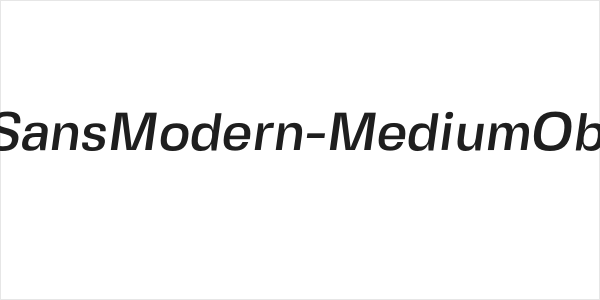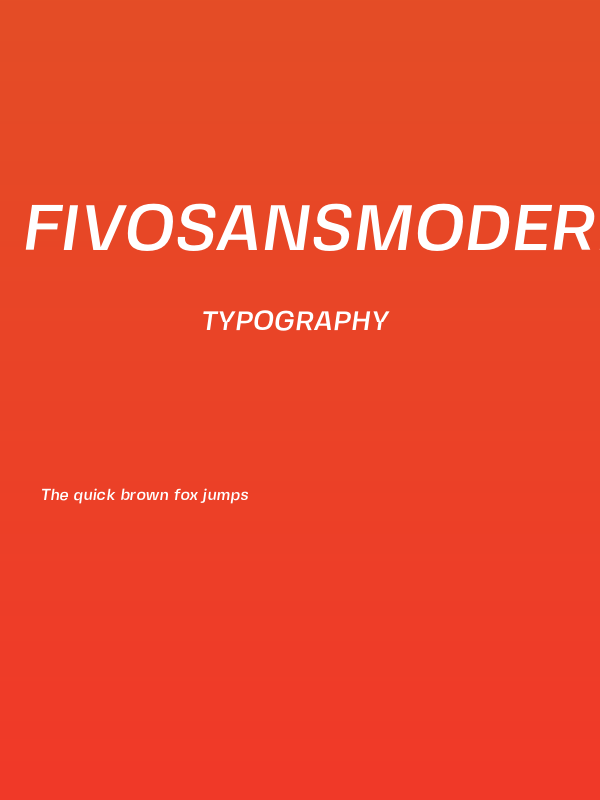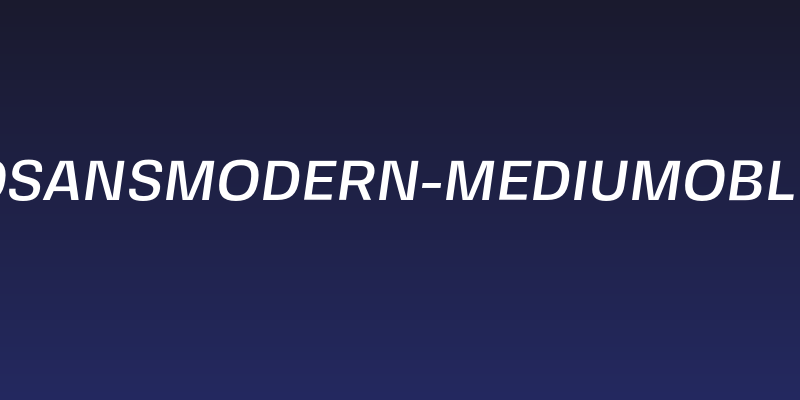
FivoSansModern-MediumOblique Font
FivoSansModern-MediumOblique Description
This font features a sleek and modern sans-serif design with an oblique style, giving it a dynamic and forward-leaning appearance. The characters are clean and well-defined, with a consistent stroke width that provides a uniform look across all letters and numbers. The font maintains a medium weight, offering a balanced presence that is neither too light nor too bold. Its slightly condensed width allows for efficient use of space, making it suitable for a variety of applications. The character spacing is normal, ensuring readability while maintaining a compact form. The font's low contrast in stroke thickness contributes to its modern and streamlined aesthetic, making it ideal for contemporary design projects.